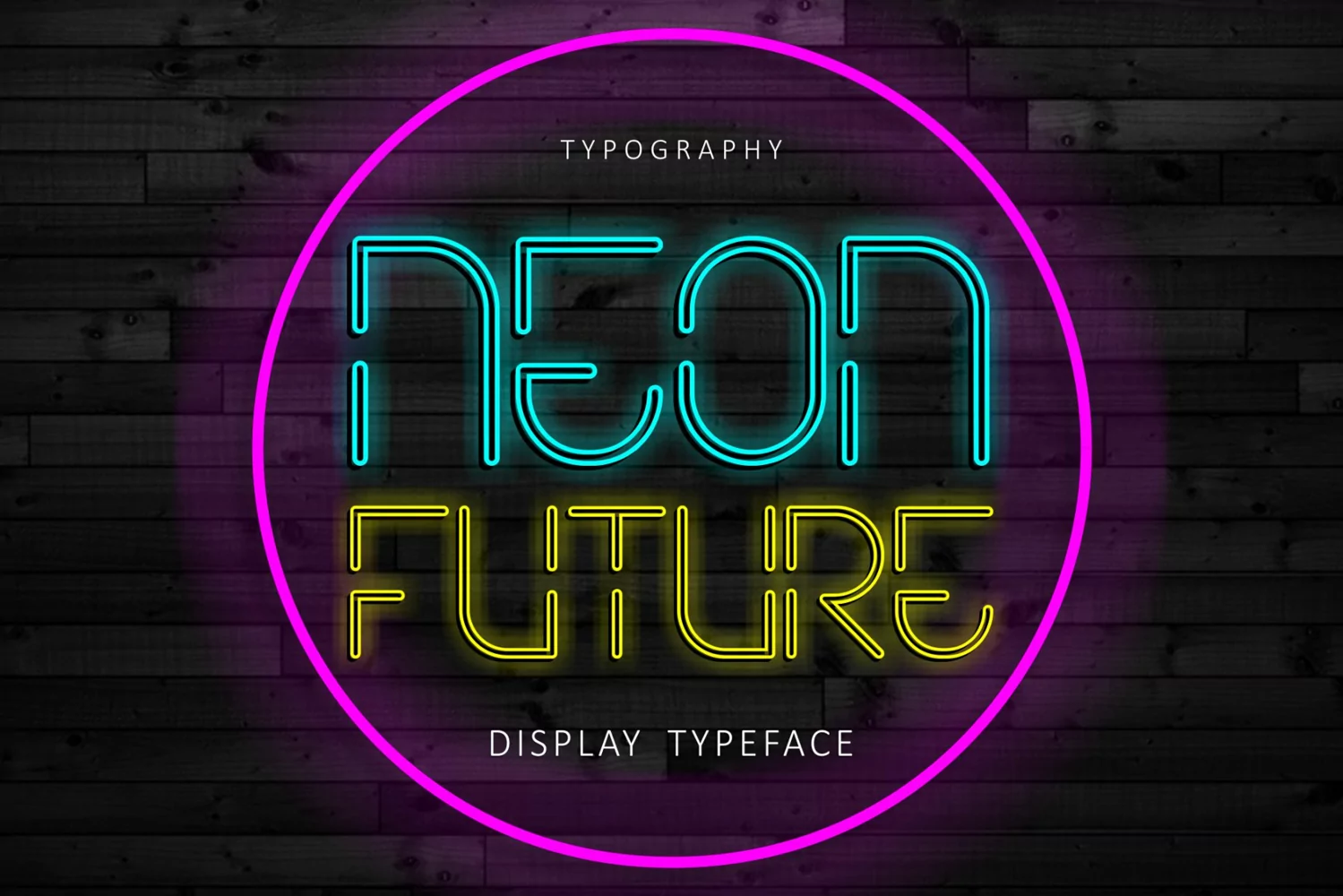
Neon Future
Neon Future Pro
Introducing Neon Future font, the epitome of retro-futuristic elegance. This new and fresh display font combines the captivating charm of neon lights with a touch of futuristic sophistication. With its timeless style and modern twist, Neon Future font is the perfect choice for any outstanding project that craves a futuristic display.
Embrace the inspiring allure of its elegant and urban look, as this font adds a distinctive and stylish flair to your designs. Its sleek lines and dynamic letterforms create a visual experience that captures attention and leaves a lasting impression.
Whether you’re working on branding, advertising, or any creative endeavor, Neon Future sets the stage for an extraordinary visual journey. Let your imagination soar as you explore the limitless possibilities of this font, bringing your ideas to life with its captivating futuristic display taste.